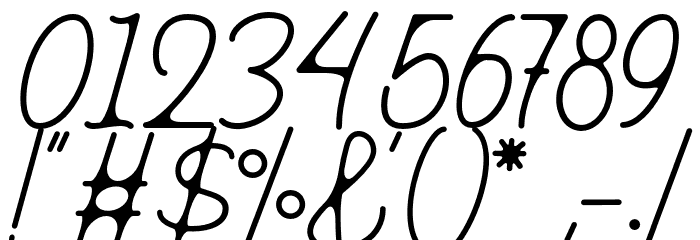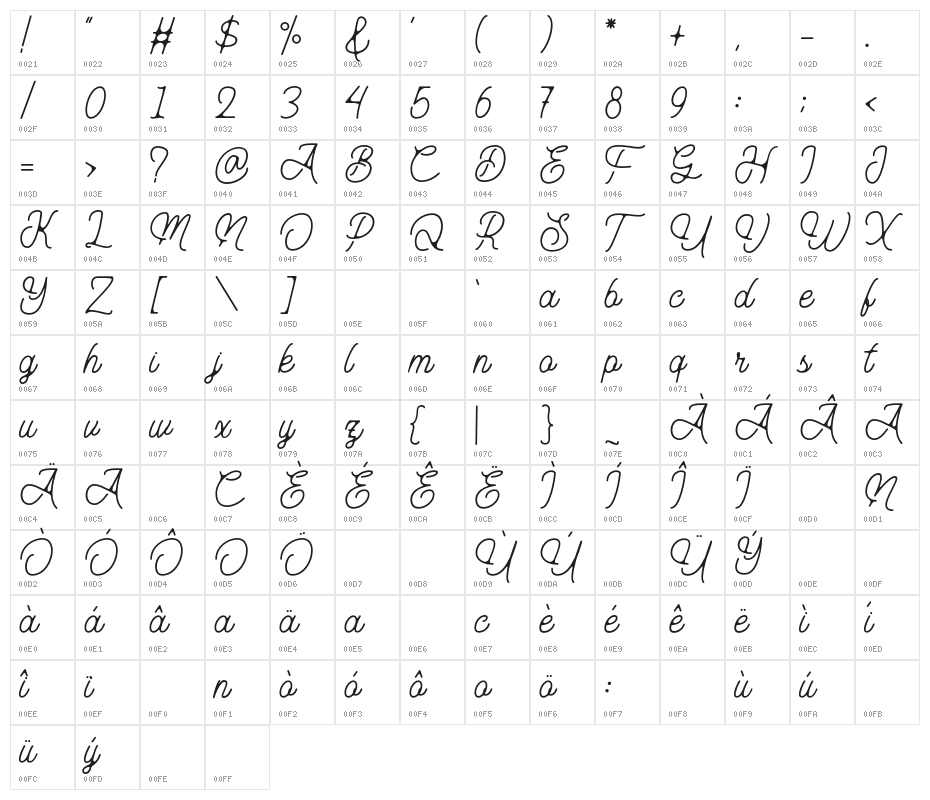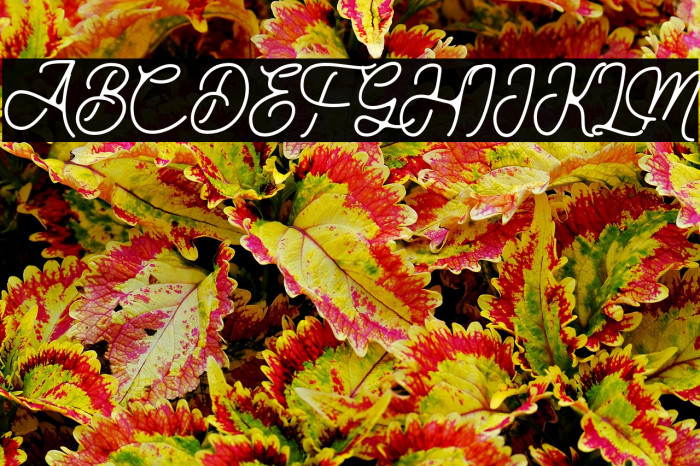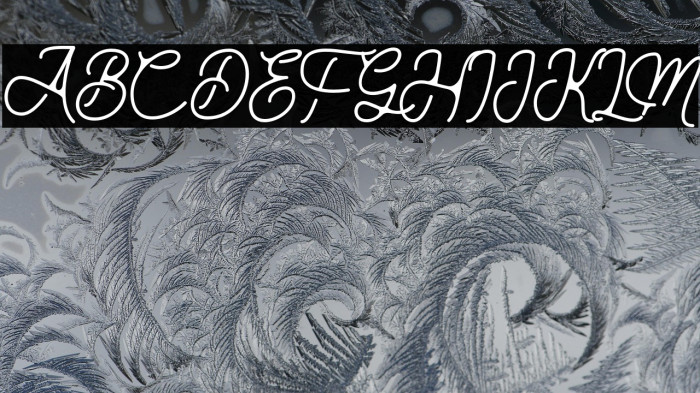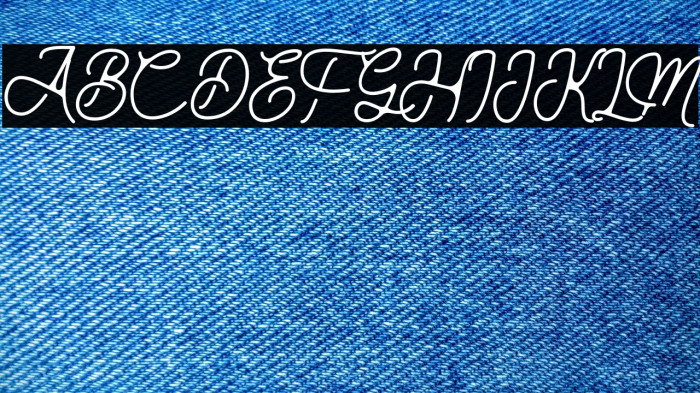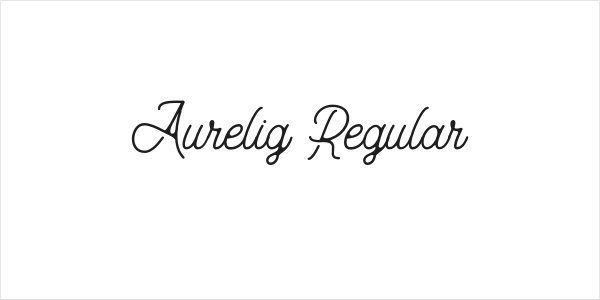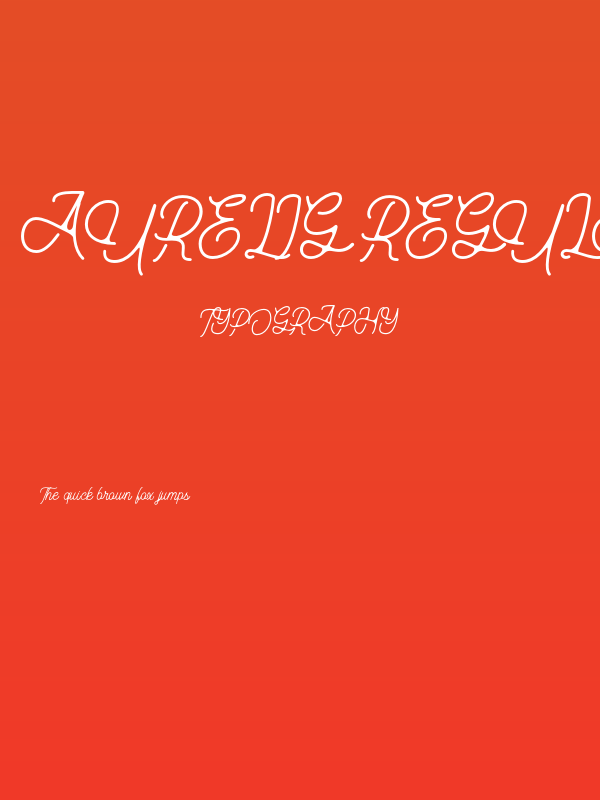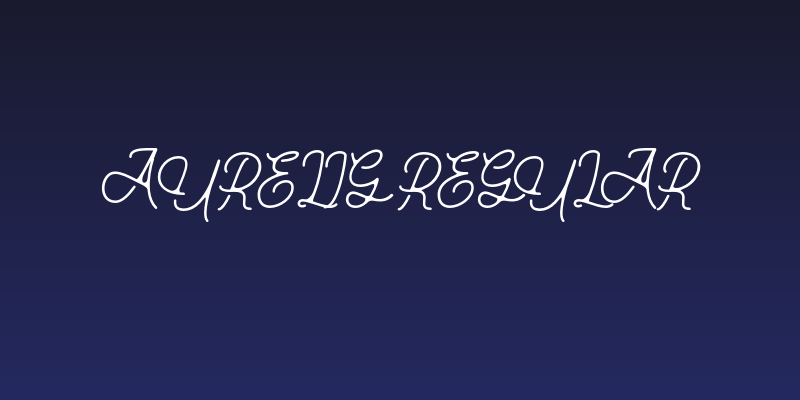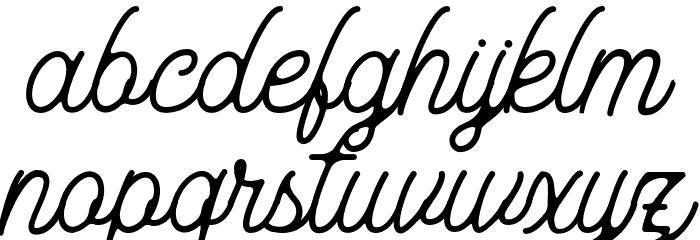
Aurelig Regular Font
Aurelig Regular Description
This font features a flowing, cursive style with elegant, interconnected letters that give it a sophisticated and artistic appearance. The uppercase letters are distinctively stylized with loops and flourishes, while the lowercase letters maintain a smooth and consistent flow. The numerals are designed to match the script style, maintaining the overall aesthetic. Special characters are also integrated seamlessly, ensuring a cohesive look across all text. The font's design is both decorative and functional, making it suitable for a variety of creative applications.
| Use Case | Logos, Invitations, Decorative text |
| Proposed Projects | Ideal for wedding invitations, greeting cards, branding, and logo design. |